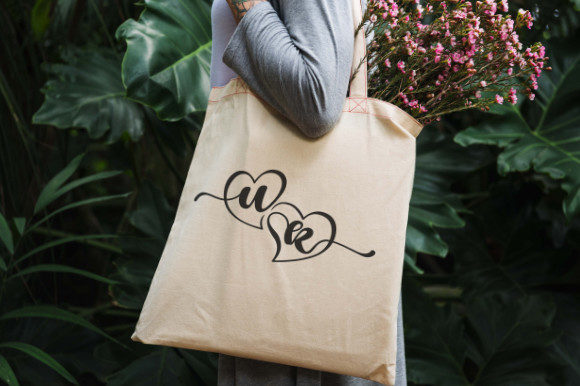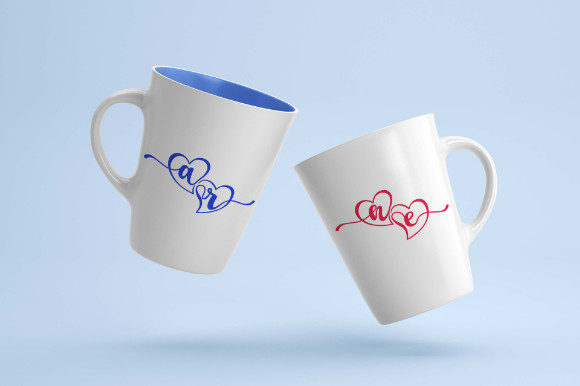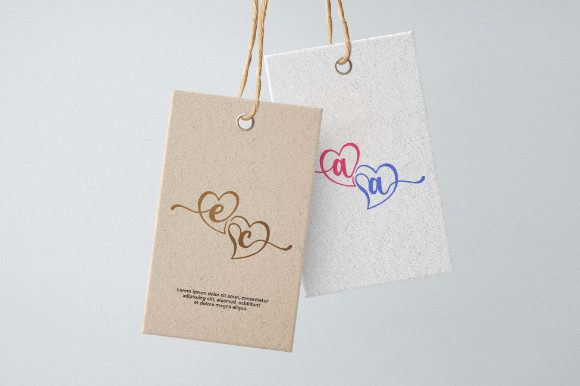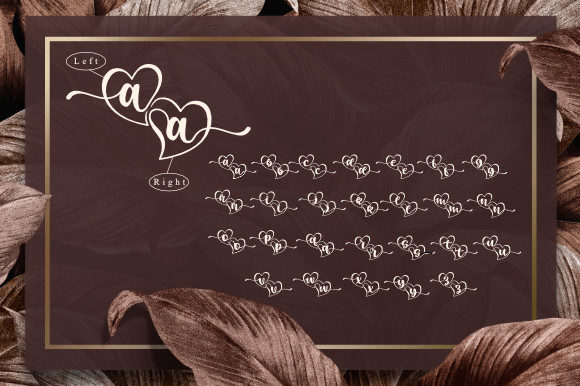
Couple Love Monogram Font: The Perfect Addition to Your Design Arsenal
Are you a designer or crafter looking for a unique and romantic font to add a touch of elegance to your creations? Look no further than the Couple Love Monogram Font! This beautiful decorative font is perfect for a wide range of crafty ideas, from logos and branding to invitations, stationery, and wedding designs. In this article, we’ll explore the features and benefits of the Couple Love Monogram Font and show you how to make the most of this stunning font.
What is Couple Love Monogram Font?
The Couple Love Monogram Font is a romantic and unique decorative font that is designed to add a touch of love and elegance to your designs. This font is perfect for designers and crafters who want to create beautiful and eye-catching creations that stand out from the crowd. With its intricate and delicate design, the Couple Love Monogram Font is sure to impress your clients and audience.
Features of Couple Love Monogram Font
The Couple Love Monogram Font comes with a range of features that make it perfect for a wide range of design applications. Some of the key features of this font include:
- Unique and Romantic Design: The Couple Love Monogram Font has a unique and romantic design that is perfect for creating beautiful and eye-catching creations.
- Decorative and Elegant: This font has a decorative and elegant design that is perfect for adding a touch of sophistication to your designs.
- Perfect for Logos and Branding: The Couple Love Monogram Font is perfect for creating logos and branding materials that stand out from the crowd.
- Suitable for Invitations and Stationery: This font is also suitable for creating beautiful invitations and stationery that are perfect for weddings, parties, and other special occasions.
- Great for Wedding Designs: The Couple Love Monogram Font is a popular choice for wedding designs, including wedding invitations, wedding stationery, and wedding decorations.
Uses of Couple Love Monogram Font
The Couple Love Monogram Font is a versatile font that can be used for a wide range of design applications. Some of the most popular uses of this font include:
- Logos and Branding: Use the Couple Love Monogram Font to create unique and eye-catching logos and branding materials.
- Invitations and Stationery: This font is perfect for creating beautiful invitations and stationery for weddings, parties, and other special occasions.
- Wedding Designs: The Couple Love Monogram Font is a popular choice for wedding designs, including wedding invitations, wedding stationery, and wedding decorations.
- Social Media Posts: Use this font to create eye-catching social media posts that stand out from the crowd.
- Advertisements: The Couple Love Monogram Font is perfect for creating eye-catching advertisements that grab the attention of your audience.
- Product Packaging: Use this font to create beautiful and eye-catching product packaging that stands out from the crowd.
- Labels and Watermarks: This font is also suitable for creating labels and watermarks that add a touch of elegance to your designs.
- Valentine’s Day: The Couple Love Monogram Font is a popular choice for Valentine’s Day designs, including Valentine’s Day cards, invitations, and decorations.
Tips for Using Couple Love Monogram Font
Here are some tips for using the Couple Love Monogram Font:
- Use it for Special Occasions: The Couple Love Monogram Font is perfect for special occasions, such as weddings, Valentine’s Day, and anniversaries.
- Experiment with Different Colors: Experiment with different colors and textures to add depth and interest to your designs.
- Pair it with Other Fonts: Pair the Couple Love Monogram Font with other fonts to create a unique and eye-catching design.
- Use it for Digital and Print Designs: This font is suitable for both digital and print designs, including social media posts, advertisements, and product packaging.
| Author | Monosimple |
The Couple Love Monogram Font is a beautiful and unique decorative font that is perfect for designers and crafters who want to add a touch of love and elegance to their creations. With its intricate and delicate design, this font is sure to impress your clients and audience. Whether you’re creating logos and branding materials, invitations and stationery, or wedding designs, the Couple Love Monogram Font is a great choice. So why not give it a try and see how it can elevate your designs to the next level?